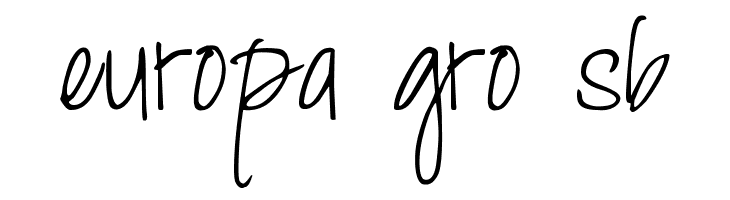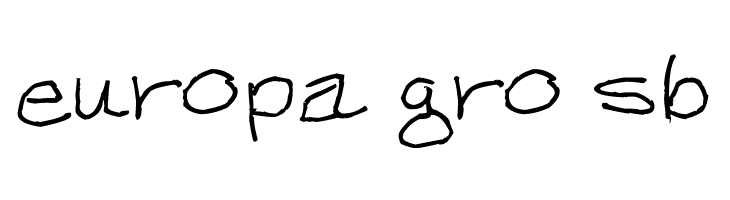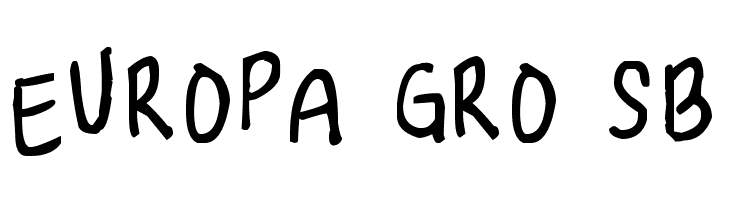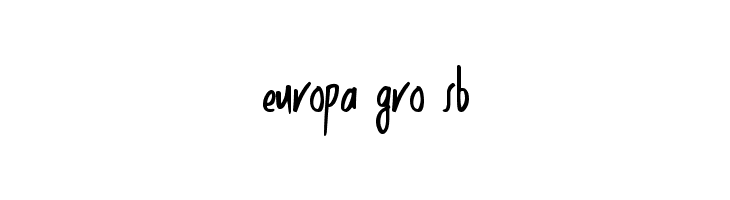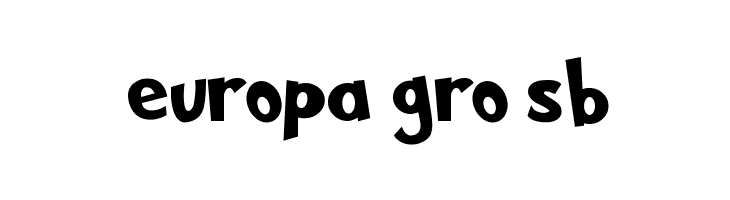
A playful, casual handwritten font with a natural, organic feel.
A playful, handwritten font with bold, rounded strokes and a casual style.
A playful, whimsical handwritten font with uneven strokes and a casual style.
A playful, whimsical handwritten font with loose, flowing strokes.
A playful, handwritten font with uneven strokes and a whimsical style.
A decorative, hand-drawn font with artistic flourishes and a rustic, vintage feel.
A whimsical, hand-drawn font with playful, uneven strokes and a dynamic feel.
A playful, handwritten font with irregular, slanted letterforms.
A bold, playful font with exaggerated, uneven strokes and a hand-drawn feel.